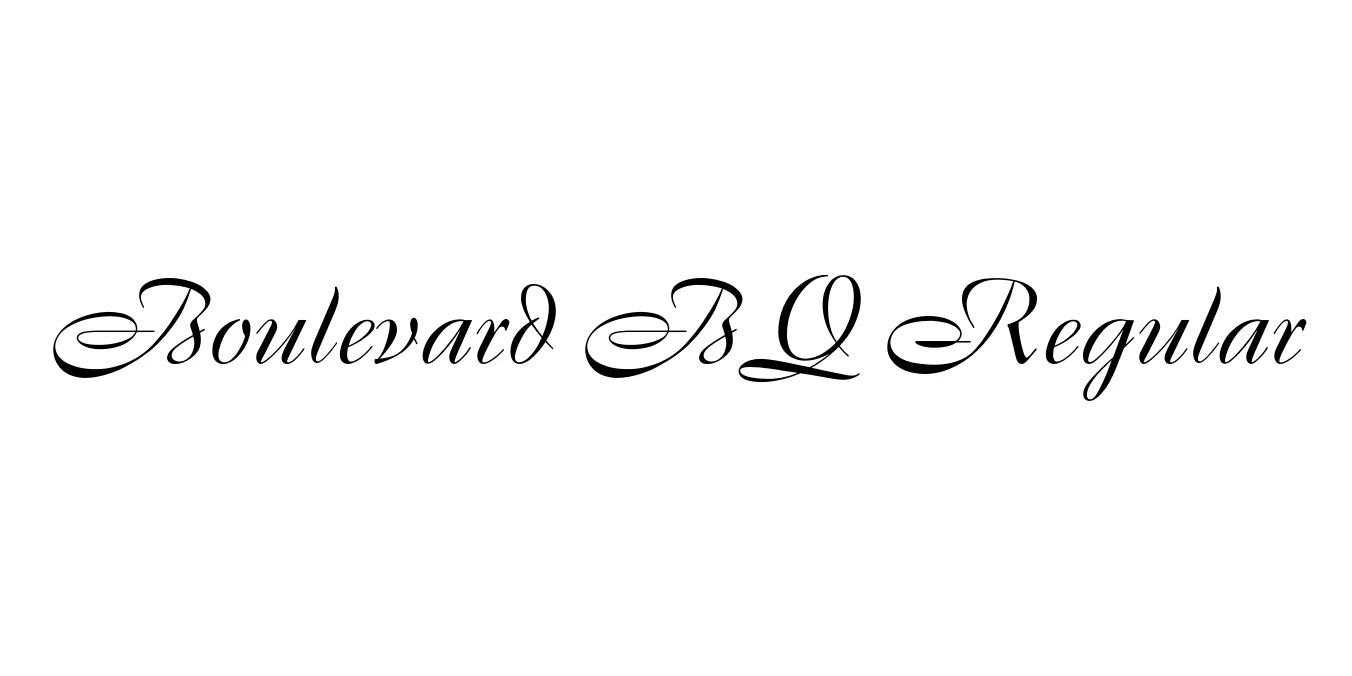
Boulevard BQ Regular
Designed by Hermann Berthold
Boulevard BQ Regular is a sophisticated script typeface originally released by the prestigious Berthold Type Foundry. It is characterized by its fluid, rhythmic strokes and elegant calligraphic aesthetic, designed to mimic the grace of high-quality hand-lettering. The font's distinct personality lies in its sweeping curves and varying stroke widths, which provide a sense of luxury and professional polish to any creative project.
As a member of the BQ (Berthold Quality) collection, Boulevard is crafted with precision, ensuring excellent legibility even in its cursive form. This typeface is frequently utilized by designers to evoke a sense of timeless elegance and personal flair, making it a staple in the world of high-end typography for both print and digital platforms.
Boulevard BQ Regular Best Uses
Creates a romantic and sophisticated look for high-end stationery.
Perfect for boutique fashion brands and luxury signature identities.
Adds a decorative and stylish touch to magazine headlines and lifestyle spreads.
Provides a warm, hand-written feel to personal and holiday messages.